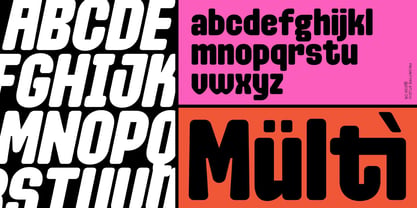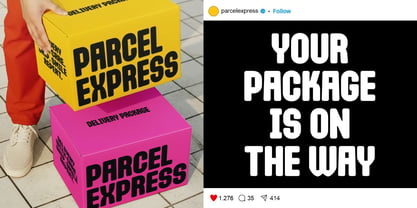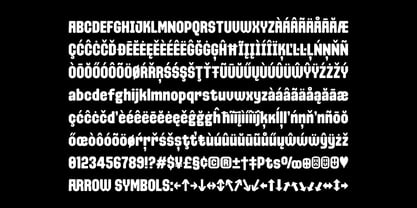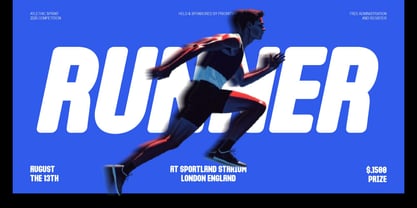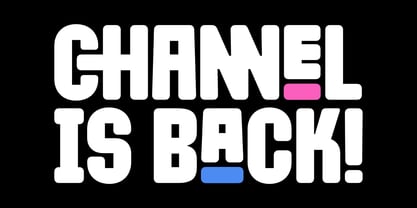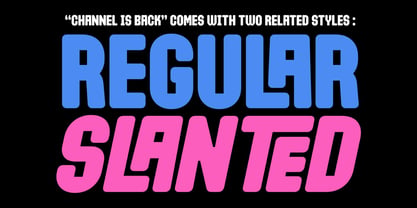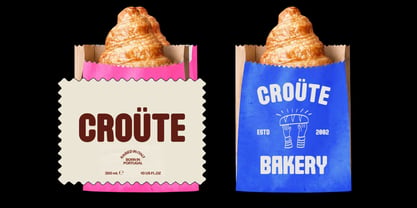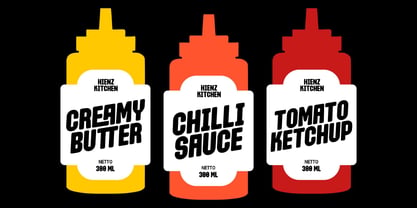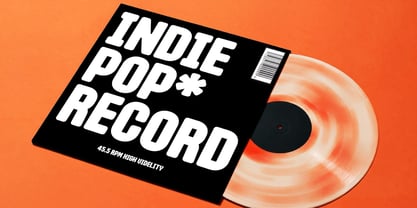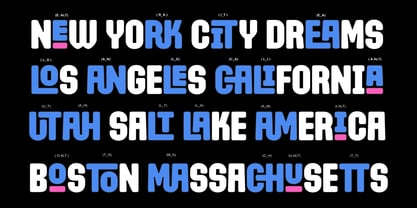
Channel Is Back
Channel Is Back is a bold and playful display typeface with a retro-inspired character. Featuring chunky proportions, rounded forms, and distinctive geometric details, it brings a fun and energetic feel to any design. The Regular style offers a strong and solid appearance, while the Slanted style adds movement and attitude.
Perfect for posters, headlines, logos, branding, packaging, apparel, album artwork, social media graphics, and other eye-catching display designs.